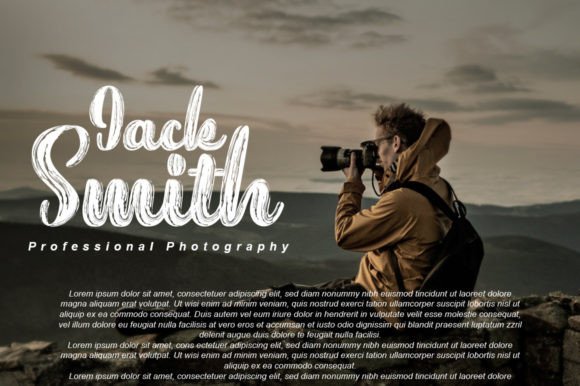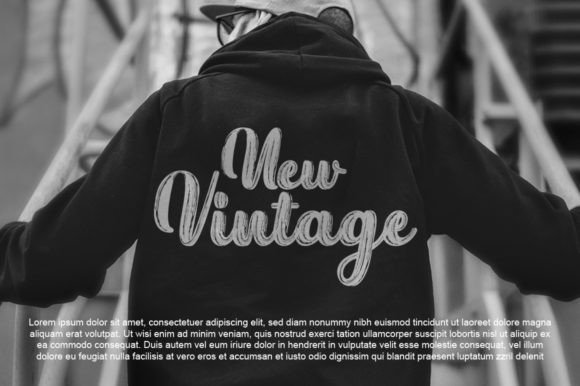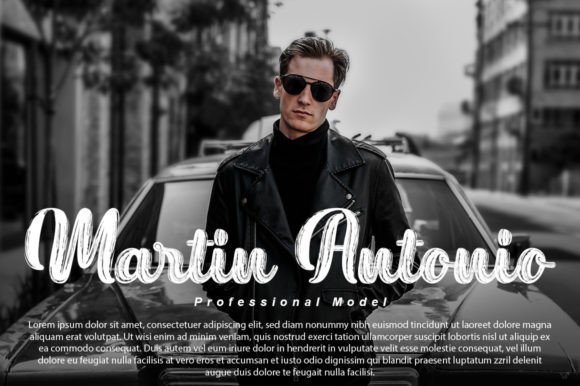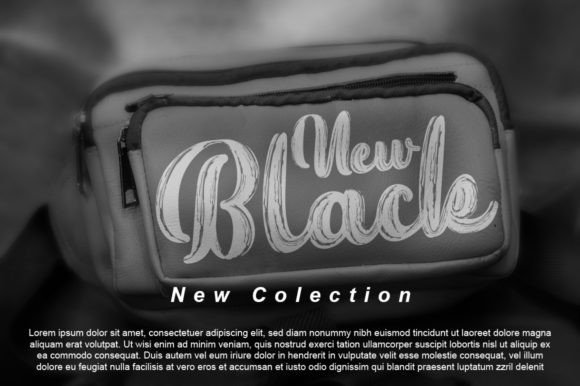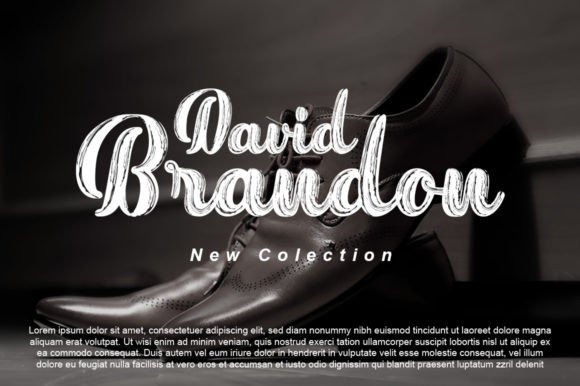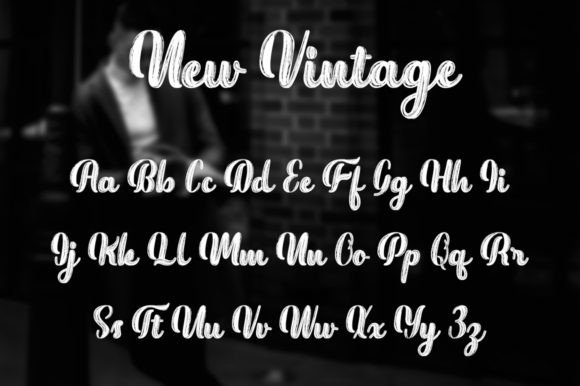
Introduction to New Vintage Font Font
Fonts play a crucial role in design, and the New Vintage Font font is a typeface that brings both character and versatility to any project. Whether you’re working on a branding project, a website, or a print design, the New Vintage Font font offers a unique style that can elevate your work.
New Vintage is a cool and trendy handwritten brush font.
Its distinct and well-balanced letters make this font a masterpiece Fall in love with its incredibly versatile style and use it to create spectacular designs.
Key Features of New Vintage Font Font
Why Choose New Vintage Font Font?
The New Vintage Font font is more than just a typeface – it’s a design tool that helps you communicate your message with style and clarity. Its unique character set and versatile design make it suitable for a wide range of applications, from elegant invitations to bold headlines.
With its carefully crafted letterforms and balanced proportions, the New Vintage Font font ensures readability and visual appeal across all mediums.
What makes New Vintage Font font special?
The New Vintage Font font stands out with its unique design, exceptional readability, and versatility across various design applications.